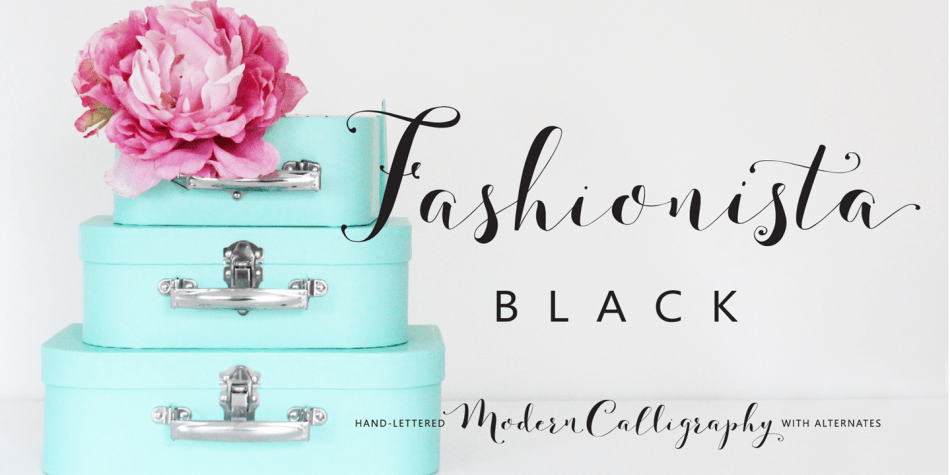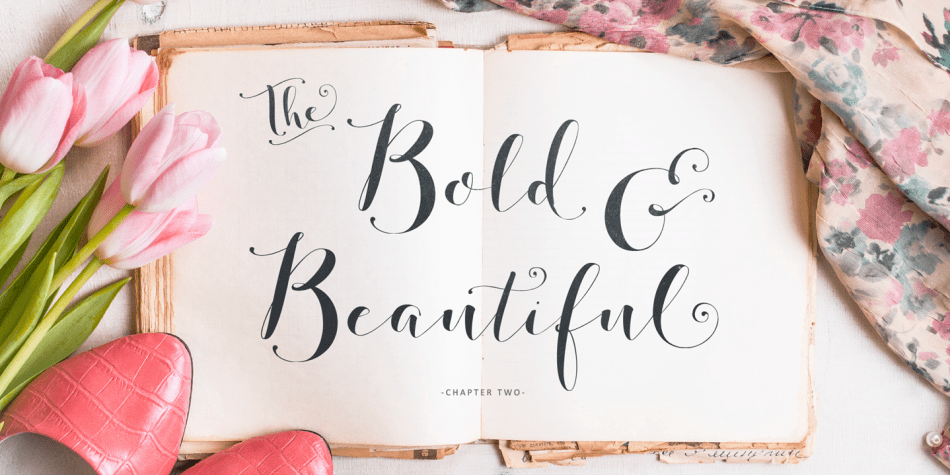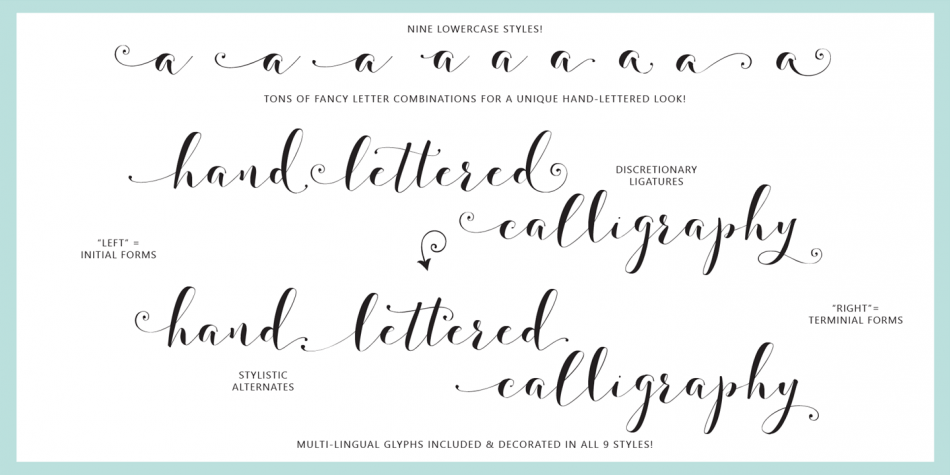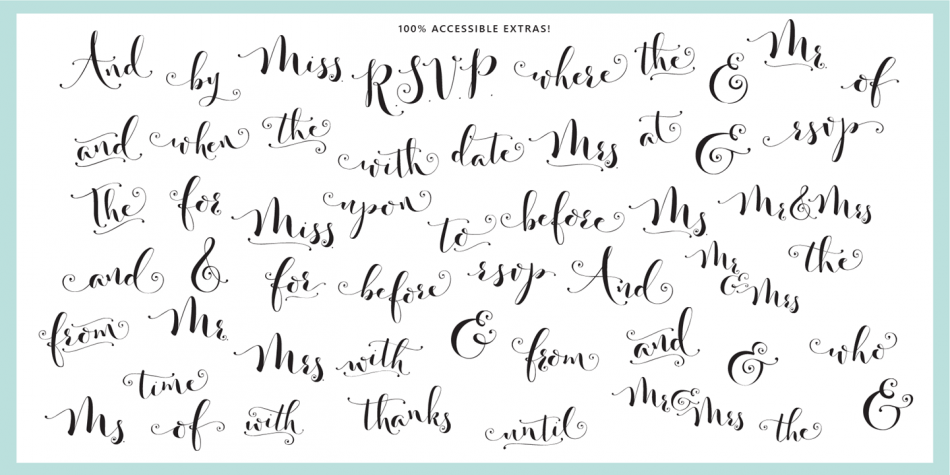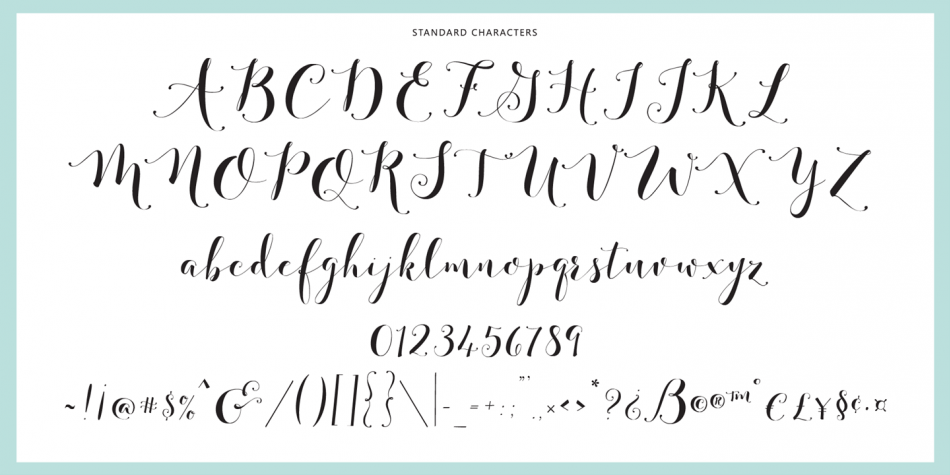
Fashionista Black
Font Family by Emily Spadoni
Meet Fashionista Black! A contemporary and clean hand-lettered calligraphy-style script. This mix of modern and classic writing is soon to be your favorite for weddings, stationary, logos, and more!
Fashionista Black Regular
Fashionista Black Xtras
Fashionista Black Right 1
Fashionista Black Right 2
Fashionista Black Left 1
Fashionista Black Left 2
Fashionista Black Alt 1
Fashionista Black Alt 2
Fashionista Black Alt 3